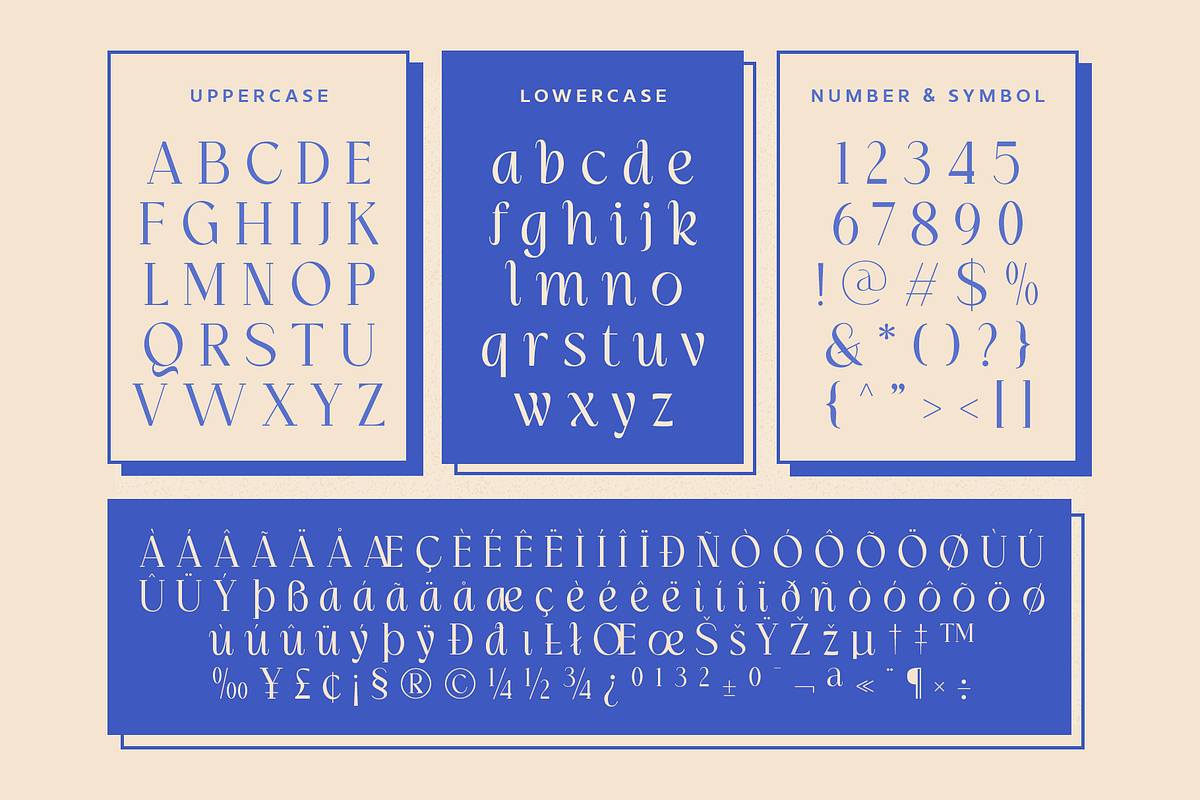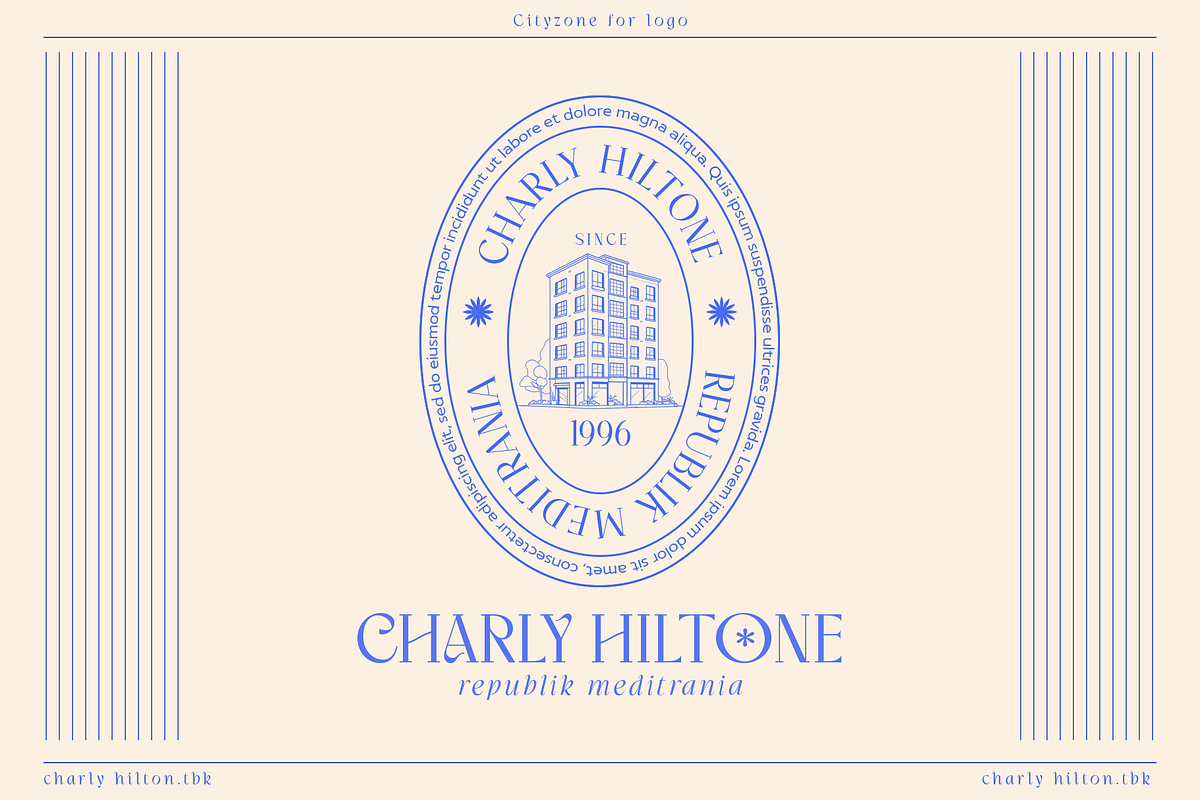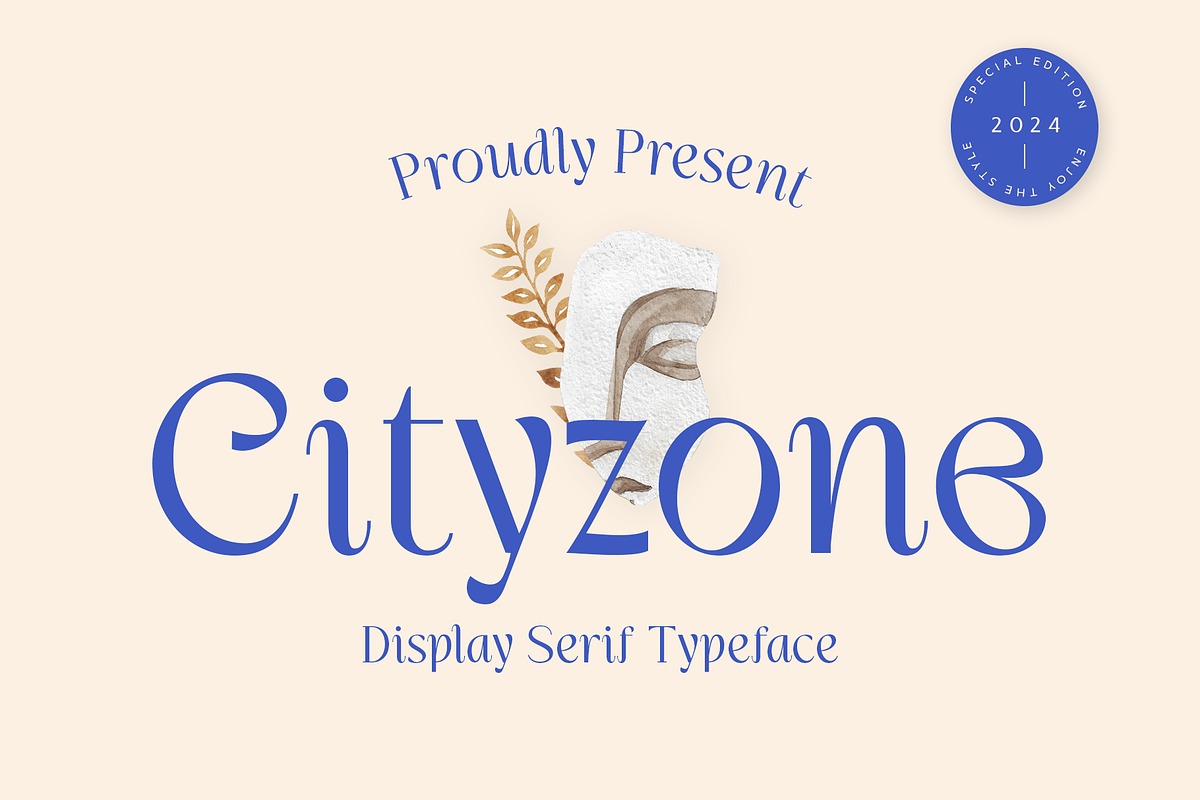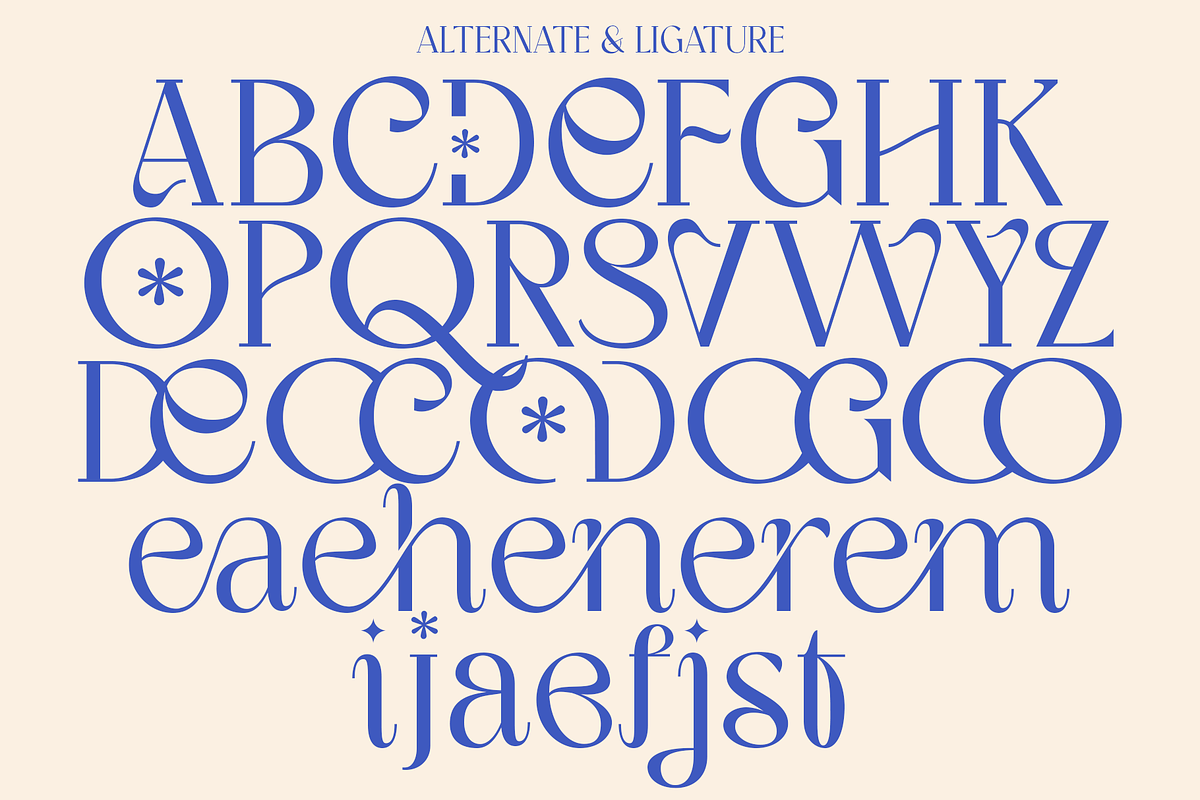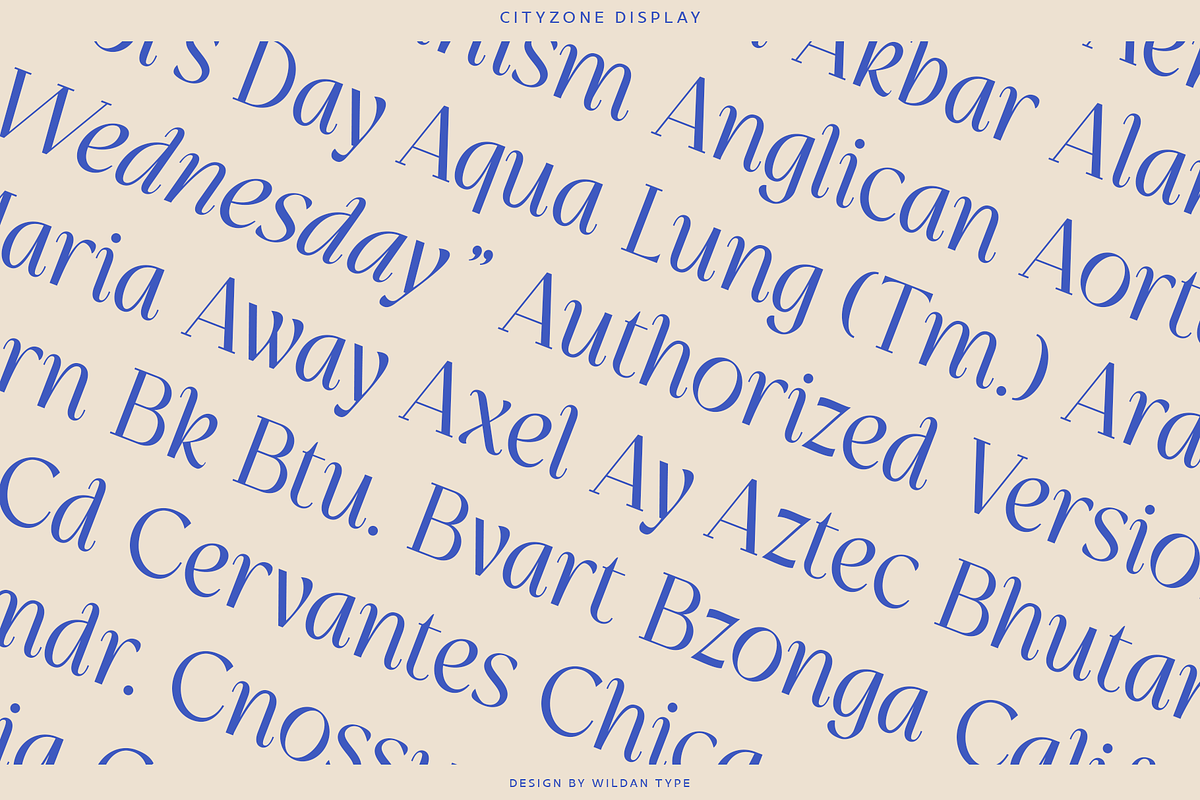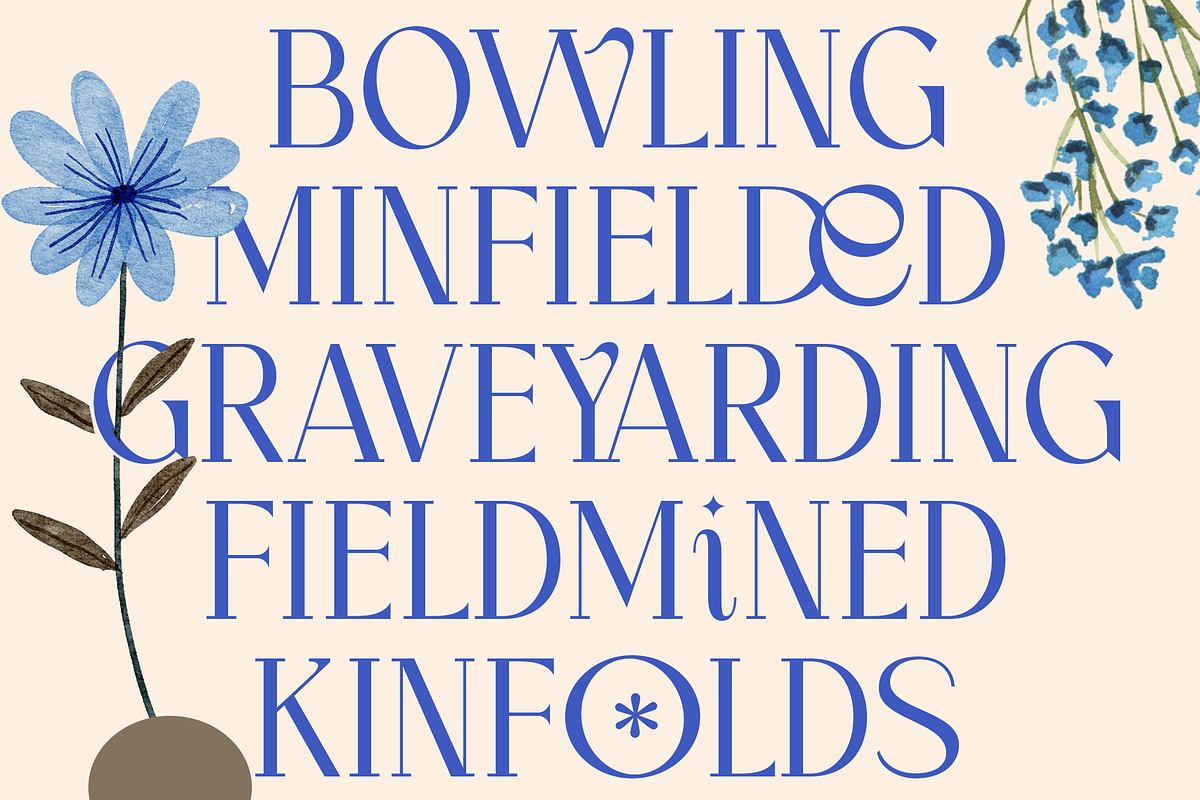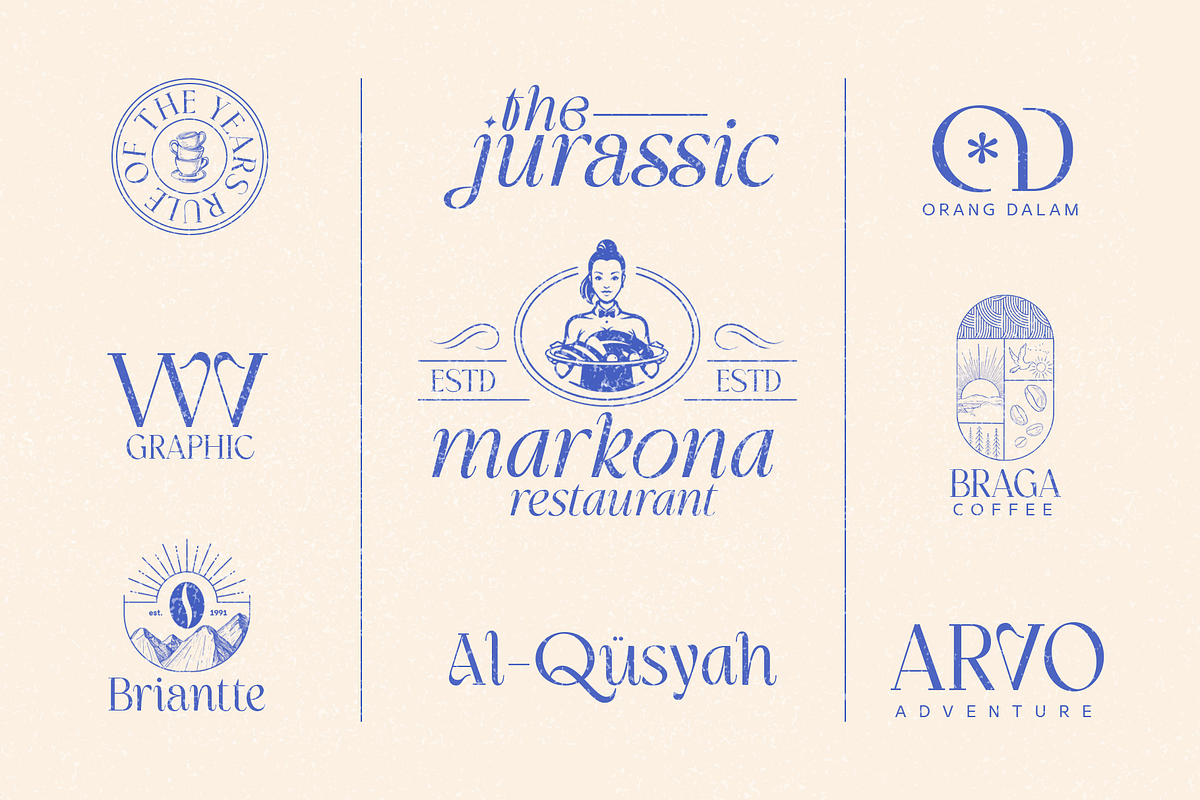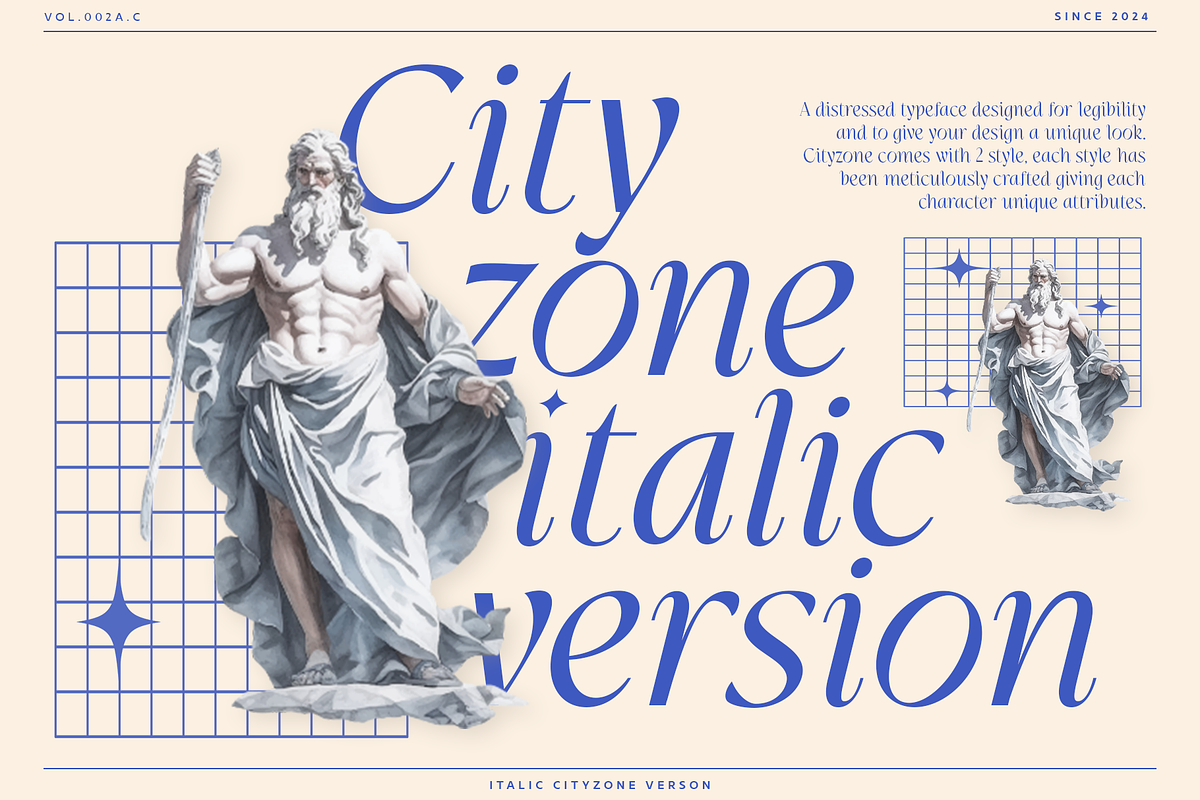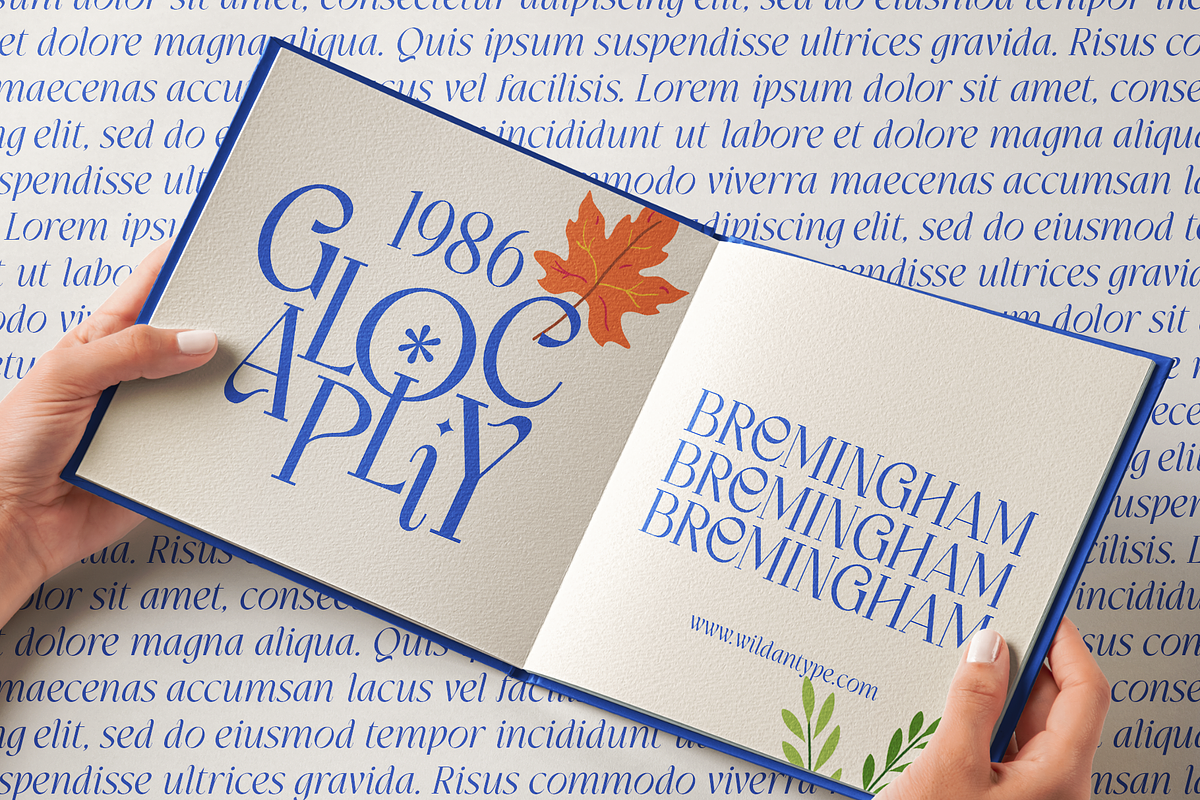
Cityzone
Proudly Present, Cityzone!
Cityzone is a serif font with a unique and classic style. It features consistently curved serifs in each character in the lowercase, creating a stronger connection between characters. Cityzone has a humanist impression with an elegant touch. In another style, there is an oblique option that can be chosen as an additional choice to add depth to your design.